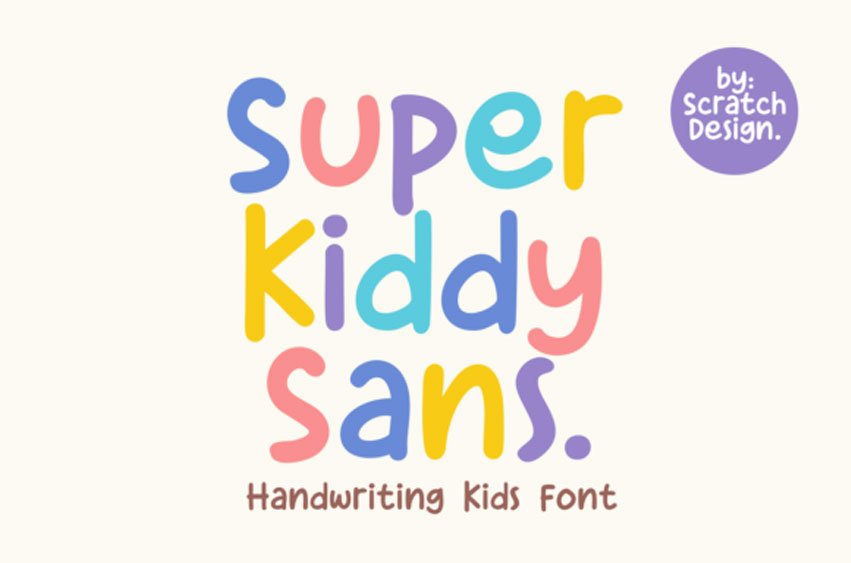
Super Kiddy Sans Font is whimsical typeface gracefully imitates the innocent hue of child’s penmanship, yet retains a refined, consistent finish.
Envision a typography that is sweet, spirited, and inherently expressive, warming the heart of your design and breathing life into it.
This font serves its purpose exceptionally well across various platforms, be it children’s literature, comic strips, personal diaries, educational materials, classroom essentials, note-taking applications, or greeting cards. Universally adaptable, its unique aesthetic also brightens up social media posts and kid-centric brand identities.
Despite its endearing casualness, the font assures neatly executed letterforms, making it a delightful choice for adult content seeking a friendly vibe. With intact glyph coverage and multi-language compatibility, it’s an ideal pick for writers, illustrators, teachers, and designers aiming for a handwritten touch that replicates a happy-go-lucky spirit, yet remains highly functional.
If your storybook characters, graphic novels, or addictive visuals require an authentic handwritten appeal, this font is an excellent accessory to your typographic palette. So enrich your designs with this font that brings nostalgia, charm, and personality to life. Download today to begin crafting designs that are lively, amicable, and brimming with charm!